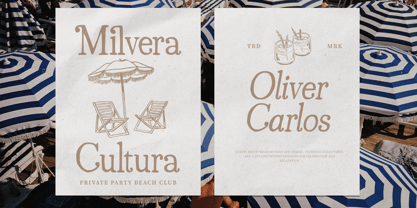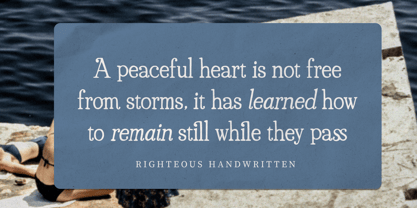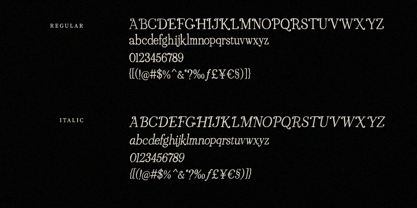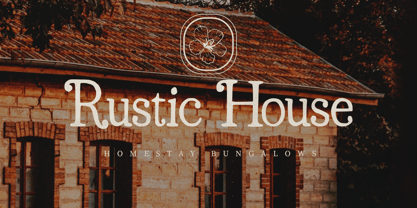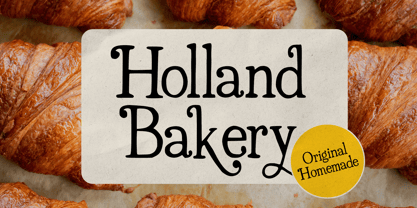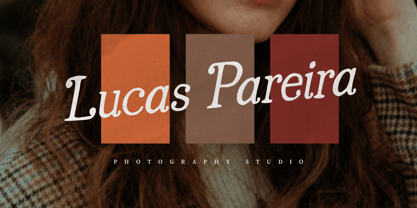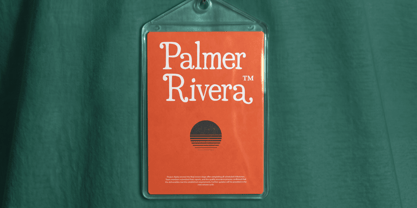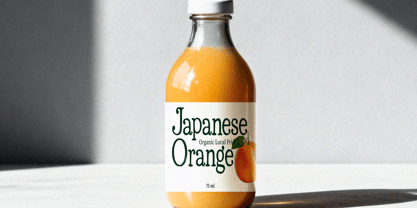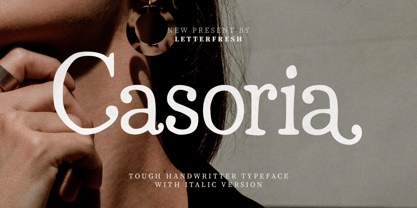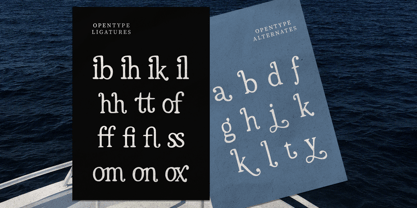
Casoria Serif
Casoria Serif is a refined serif typeface that combines rustic charm with a touch of modern sophistication. Its slightly rough edges and elegant curves create a handcrafted yet professional look, while the availability of regular, italic, and unique ligatures enhances its versatility. This font is well-suited for branding, editorial layouts, packaging, and creative projects, offering a warm and timeless aesthetic that balances classic tradition with contemporary style.
Contains full set :
• Uppercase
• Lowercase
• Ligatures
• Alternates
• Punctuation
• Number
• Multilingual support.